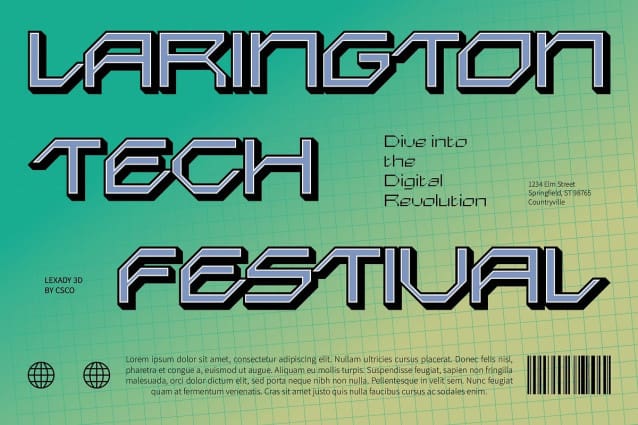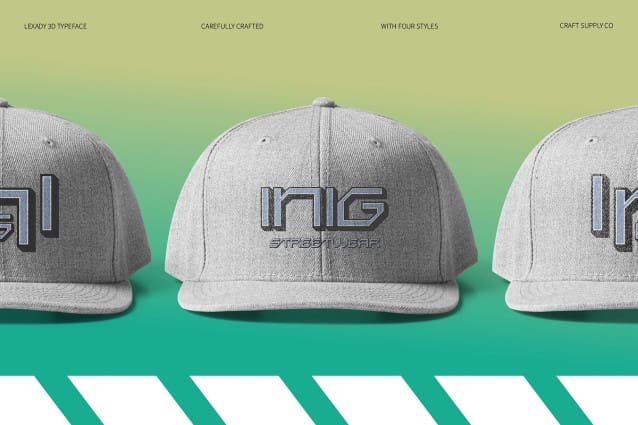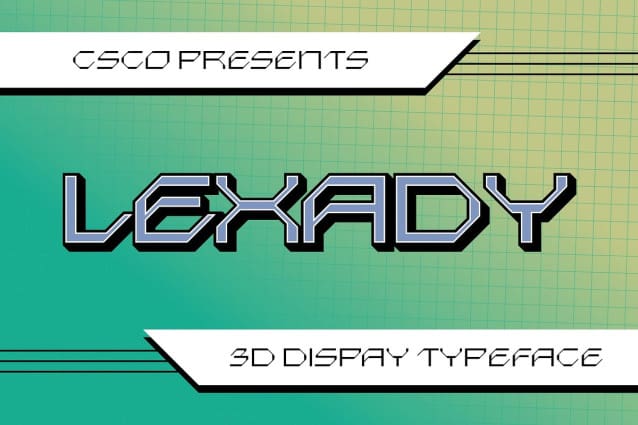
Lexady 3D Font
Lexady 3D Font is a modern display font that brings futuristic and techno-inspired elements to the forefront. Its sharp, geometric letterforms reflect advanced technological design, while the 3D effect adds depth and dimension, creating a dynamic, eye-catching look. This font’s cutting-edge appearance is perfect for projects seeking to make a bold statement with a modern, high-tech edge.
Dynamic and Innovative Visual Impact The combination of geometric precision and the dimensional 3D effect creates a highly engaging and innovative visual impression. Lexady 3D stands out dramatically in a variety of applications, from posters and digital media to branding and signage. Its sleek, forward-thinking design ensures that it will capture attention and elevate any project, giving it a futuristic and powerful vibe.
Perfect for Tech-Focused and Creative Projects Lexady 3D is ideal for designs that aim to evoke a sense of innovation, technology, and creativity. Whether used in digital marketing, technology branding, or futuristic graphic design, this font brings a fresh, modern approach to typography, ensuring that your message stands out in a creative and visually striking way.